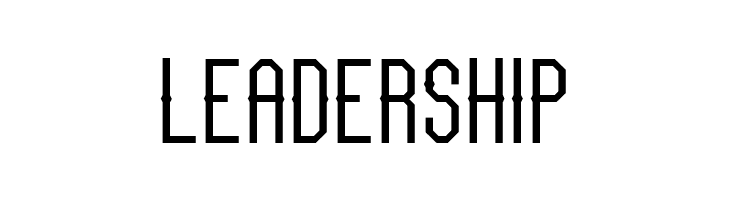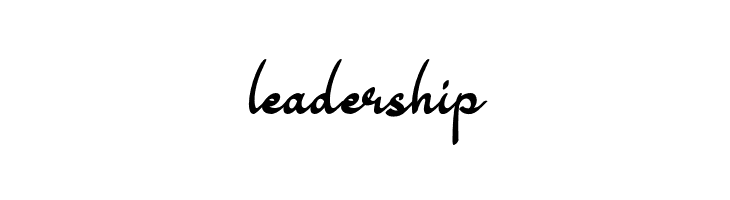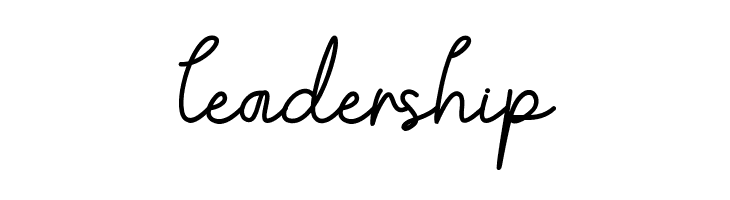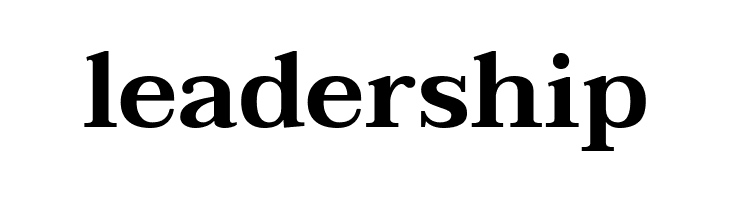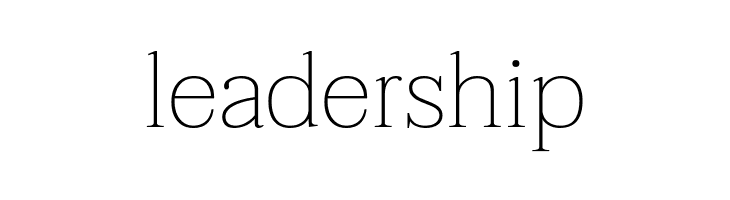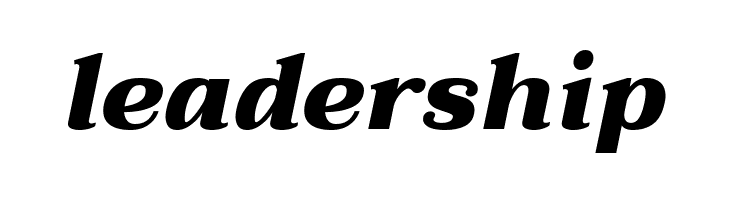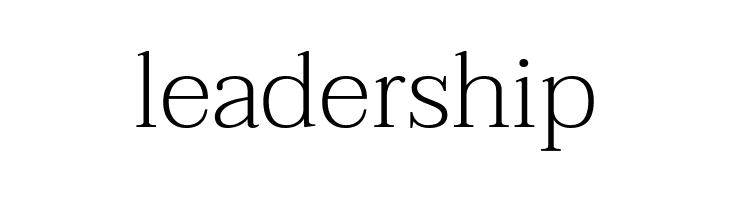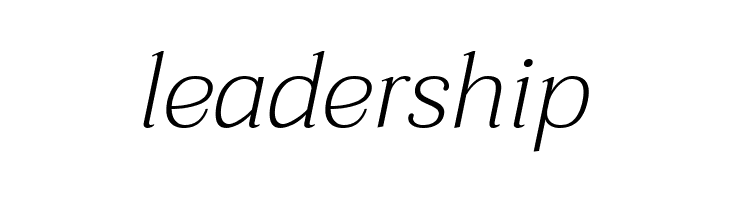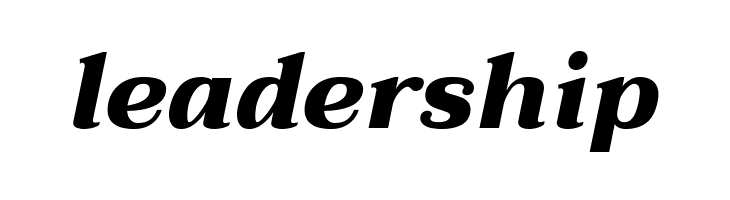
A modern, geometric outline font with a futuristic and technical style.
A dynamic and elegant script font with fluid, connected letterforms.
A playful, hand-drawn font with a bold, textured style.
A playful, zigzag-patterned font with a hand-drawn, whimsical style.
A bold serif font with strong strokes and a classic yet modern style.
A bold, italicized font with strong strokes and a dynamic presence.
A bold serif font with classic elegance and modern strength.
A bold, italic serif font with a classic yet modern style.
A bold serif typeface with strong, authoritative strokes and pronounced serifs.
A bold, italic serif font with strong strokes and elegant slant.
A refined serif font with thin, elegant strokes and a modern yet classic appeal.
An elegant, thin italic serif font with a refined and sophisticated style.
An elegant italic serif font with refined, elongated characters and classic styling.
A refined serif font with a light weight and classic elegance.
A refined, light, and italic serif font with elegant proportions.
A classic serif font with medium weight and balanced readability.
A refined, medium-weight italic serif font with elegant slant and subtle serifs.
A modern serif font with balanced proportions and moderate contrast, offering elegance and readability.
A semi-bold serif font with moderate contrast and elegant styling.
An elegant semi-bold italic serif font with a classic and sophisticated style.
A refined serif font with thin, elegant strokes and a sophisticated appearance.
A thin, elegant italic font with a refined and sophisticated style.
A decorative font with playful curls and elegant swirls.
A geometric, angular font with a modern and futuristic design.
A geometric, modern font with sharp angles and a bold, industrial style.
A bold, geometric font with a strong, angular design, ideal for sports themes.
A dynamic handwritten font with fluid strokes and playful elegance.
A dynamic and flowing script font with elegant curves.
A flowing, cursive font with a handwritten, elegant style.
A casual, flowing handwritten font with smooth, cursive strokes.
A playful, hand-drawn font with a whimsical and informal style.
A playful, handwritten font with smooth, flowing strokes and a casual vibe.